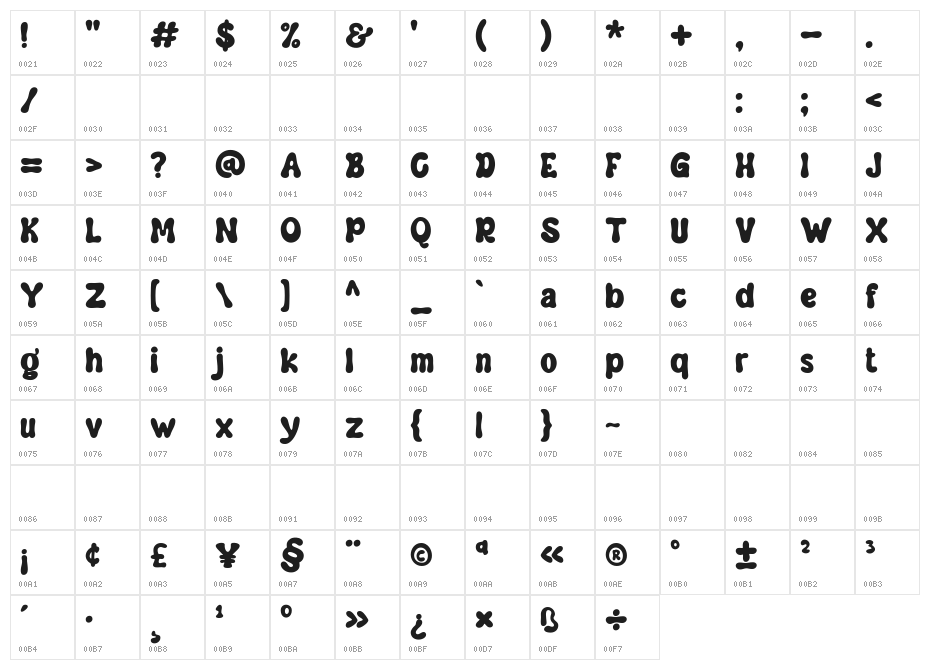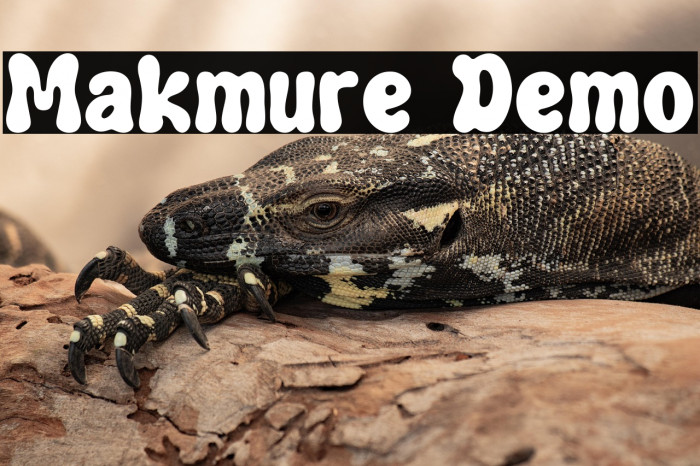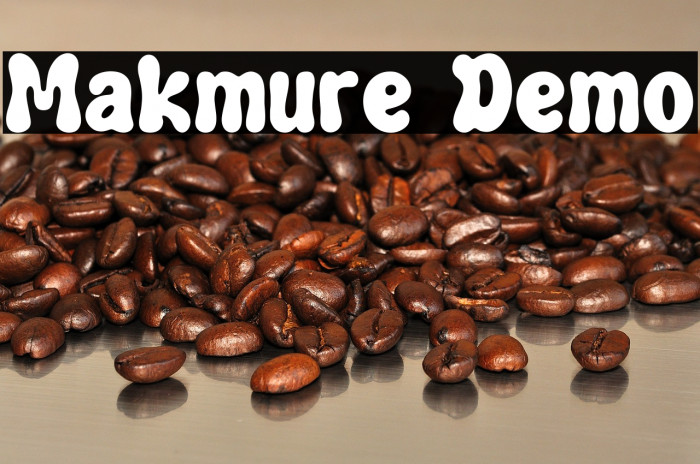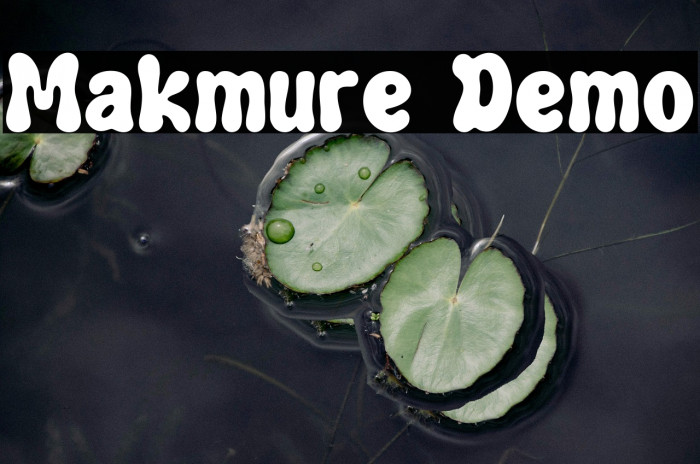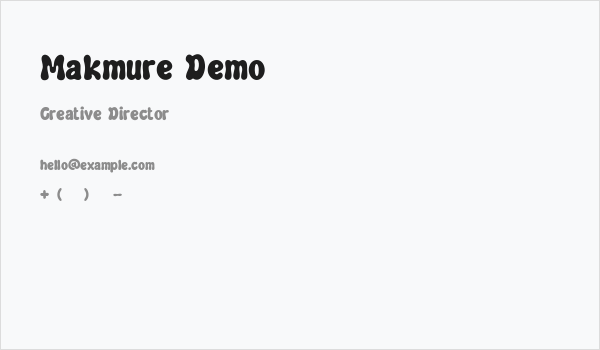
Makmure Demo Font
Makmure Demo Description
This font features a playful and bold design with rounded, bubbly characters that give it a whimsical and friendly appearance. The letters are thick and have a consistent weight throughout, contributing to a cohesive and unified look. The style is reminiscent of retro or vintage designs, making it suitable for projects that aim to evoke nostalgia or a sense of fun. The characters are well-spaced, ensuring readability despite their unique shapes. This font includes a full set of uppercase and lowercase letters, numbers, and a variety of special characters, making it versatile for different design needs.
| Proposed Projects | Ideal for children's book covers, playful branding, retro posters, and creative social media graphics. |